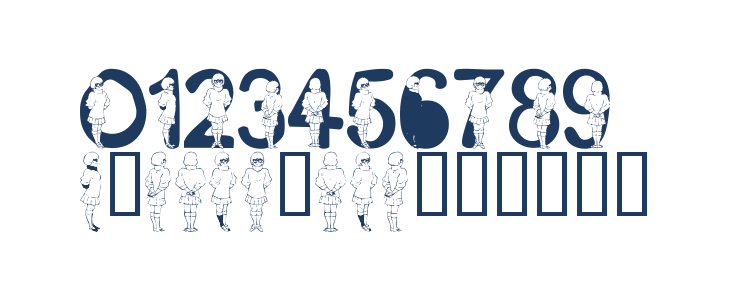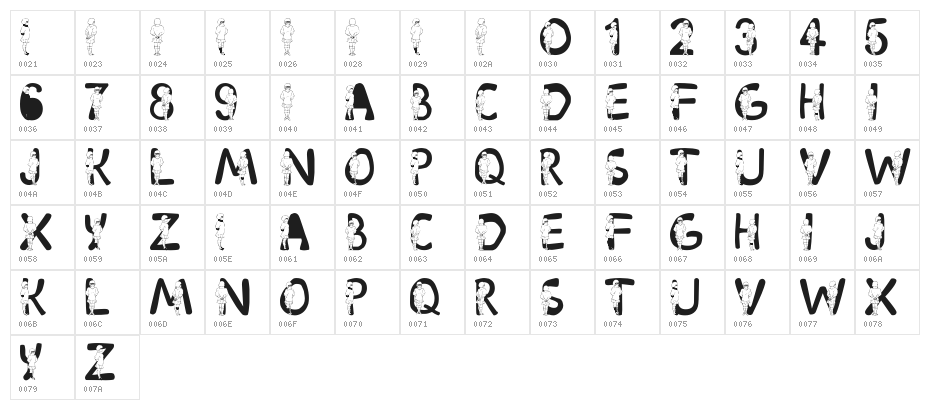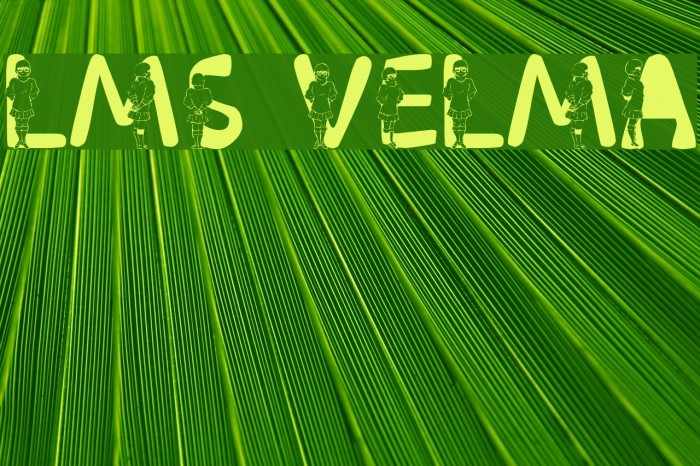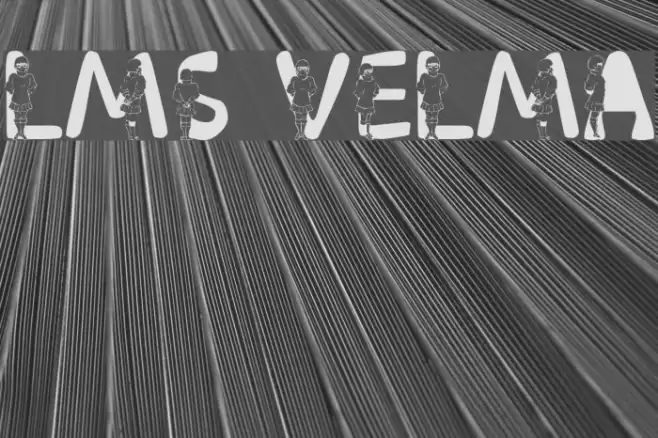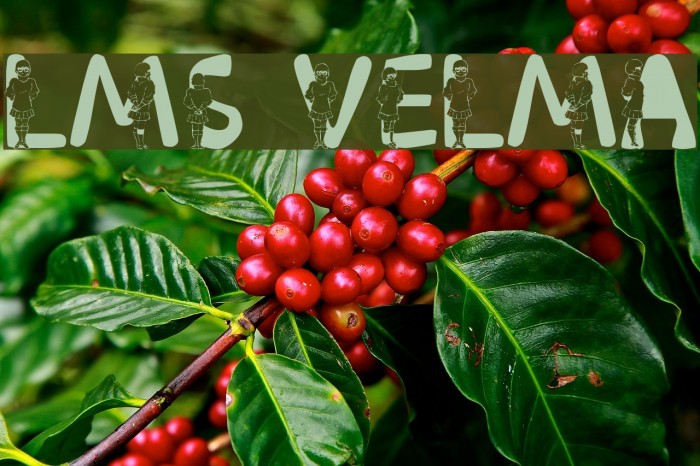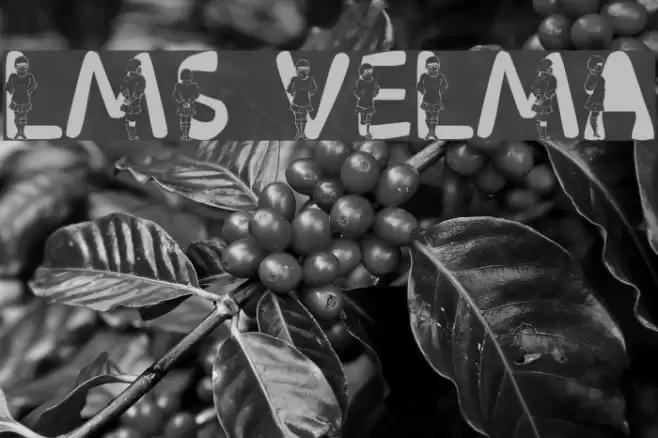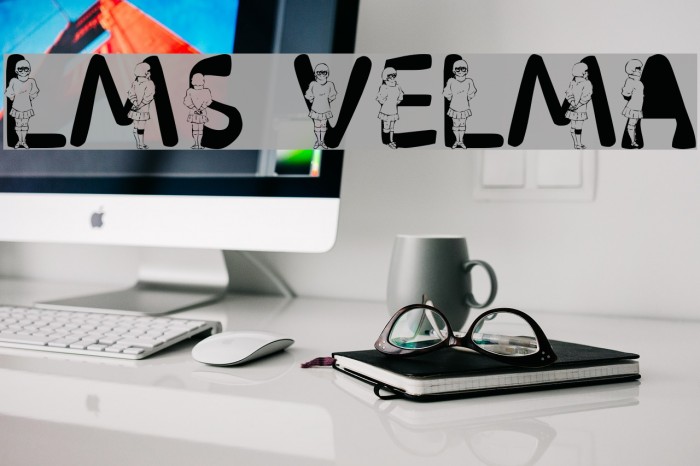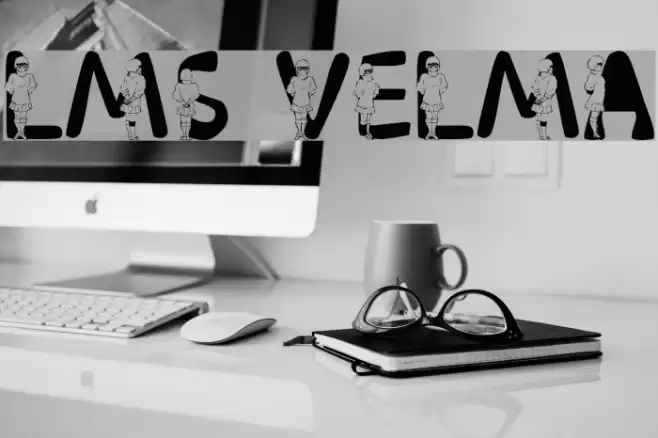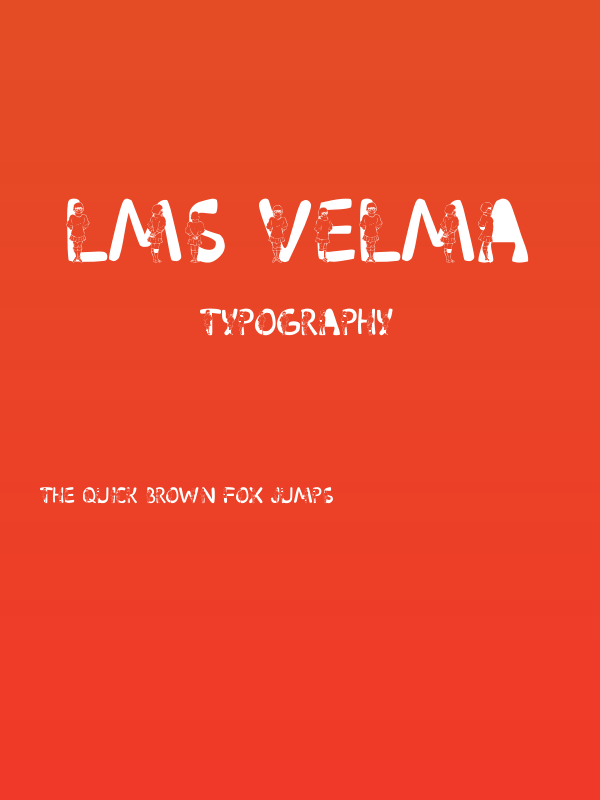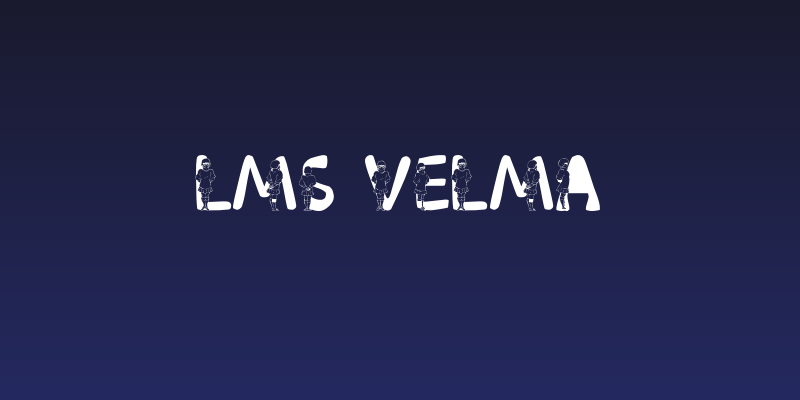
LMS Velma Font
LMS Velma Description
This playful and unique font features bold, rounded characters with illustrations of a character integrated into each letter and number. The design is whimsical, with each character adding a sense of fun and creativity. The font maintains a consistent weight and width throughout, providing a cohesive look despite the intricate details of the illustrations. The characters are well-defined, with a clear distinction between each letter and number, making it both decorative and legible. The font's style is reminiscent of comic or cartoon themes, making it ideal for projects that require a touch of humor and personality.
| Overall Style | Playful, Cartoon |
| Proposed Projects | Ideal for children's books, comic strips, playful branding, and themed event invitations. |